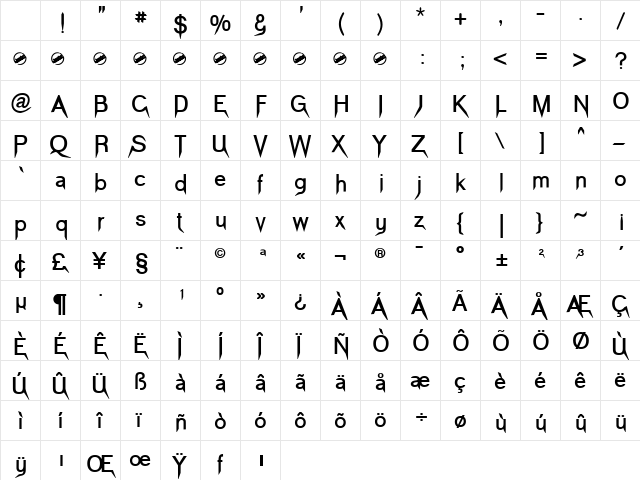
Complete Vampetica Bold glyph index. Displaying only characters natively supported by Vampetica Bold font.
Vampetica is a composed and adaptable typeface that performs quietly and consistently across a wide range of design contexts. Its bold stroke weight gives it real presence on the page.